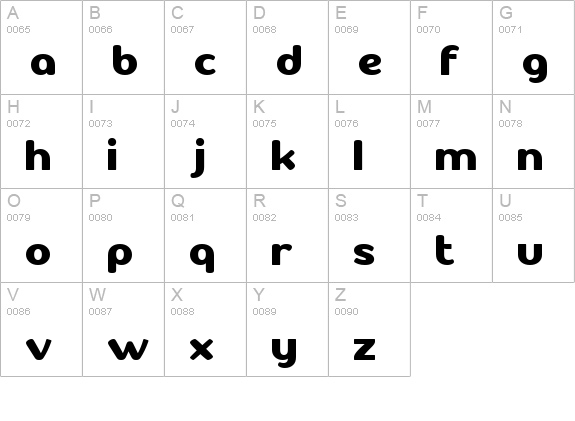
Itv font Font Details
The Itv font is a modern and stylish typeface that is perfect for a wide range of design projects. With its sleek lines and elegant curves, Itv font exudes sophistication and professionalism. This versatile font is ideal for both digital and print applications, making it a must-have for designers and creatives alike. Best of all, Itv font is available for free download at FontsMarket.com, so you can easily access this stunning typeface and enhance your designs with its unique charm. Unlock the potential of your projects with the Itv font and make a lasting impression with its timeless appeal.